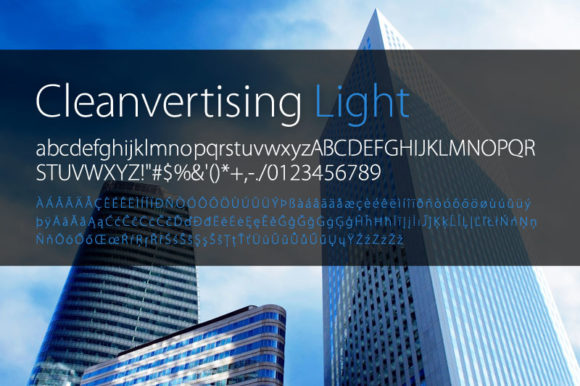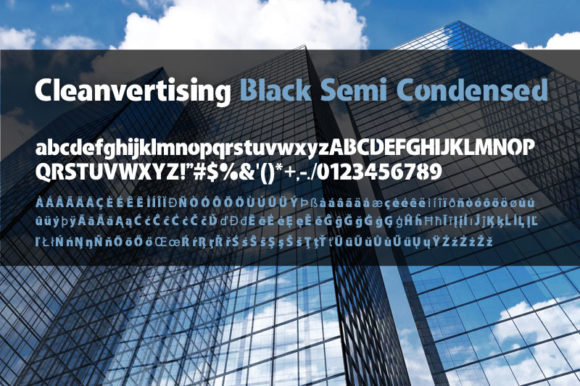
Introduction to Cleanvertising Font
Cleanvertisingis an incredibly cool display font.
With a modern yet whimsical style, this font has the potential to bring each of your creative ideas to the highest level .
Key Features of Cleanvertising Font
Why Choose Cleanvertising Font?
Cleanvertising Font offers exceptional quality and versatility, making it a valuable addition to your design toolkit. Whether you’re creating for personal projects or commercial use, Cleanvertising Font delivers professional results.